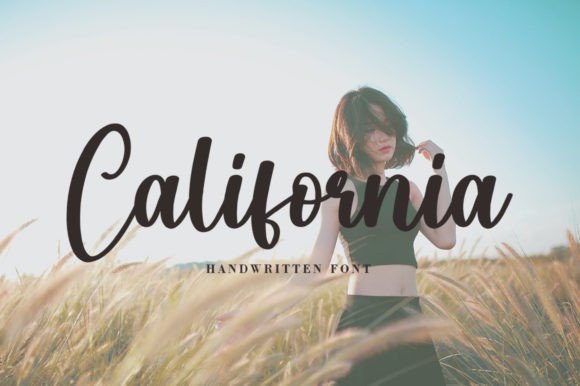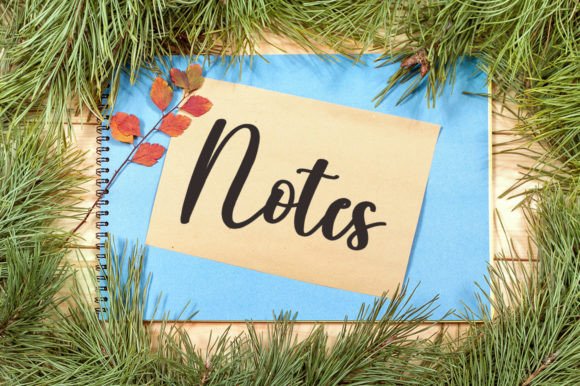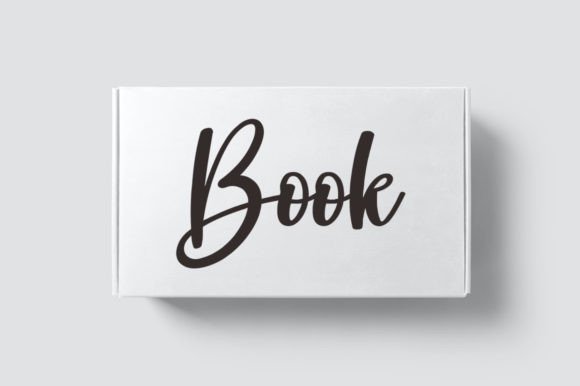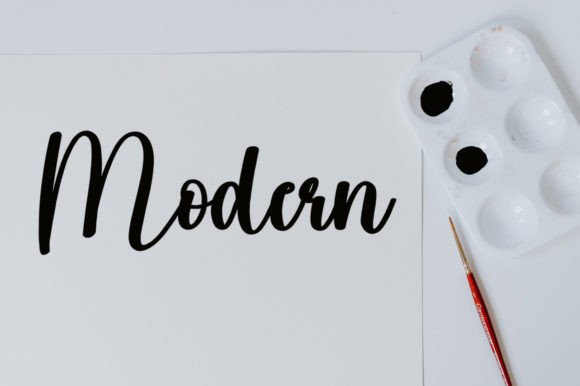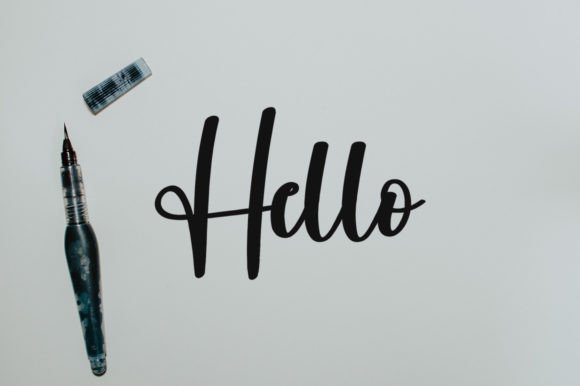
California Font
A Fun and Friendly Handwritten Script
California is a cheerful handwritten font designed to add warmth and personality to any creative project. With its smooth, casual strokes, it feels approachable and playful. Whether you’re designing greeting cards, crafts, or digital content, California makes your work stand out with a happy, inviting look.
Its clean lines and balanced curves make it versatile enough for both personal and professional use.
California is a font you’ll reach for over and over again. It’s perfect for crafting projects, including handmade cards, labels, and scrapbook pages. The friendly handwritten style helps every design feel unique and sincere.
For digital design, California shines on social media graphics, website headers, and presentations. The playful script adds energy and keeps your visuals fresh and engaging.
This font also works beautifully on event materials like birthday invitations, party banners, and thank you cards. The casual look creates a lighthearted atmosphere that guests will love.
In branding, California can add a welcoming touch to logos, packaging, and business cards. The approachable style helps your brand feel genuine and relatable.
Despite its playful character, California remains clear and legible in any size. Balanced spacing and smooth connections between letters ensure your text is neat, whether in big headlines or smaller captions.
For a modern, clean look, pair California with a simple sans-serif font. Use California for titles and highlight text, and the sans-serif for supporting content. This combination creates a professional layout while showcasing the font’s joyful feel.
To make California shine, use soft color palettes and simple backgrounds. Shades like pale blue, blush pink, and light gray help the script stand out without overwhelming your design.
When designing cards or crafts, consider adding small illustrations or decorative borders that complement the handwritten style.
On social media, embrace white space to keep your text clear and make your posts easy to read.
Think about the mood you want to create. California is perfect for designs that should feel friendly, upbeat, and welcoming.
California isn’t just another handwritten font—it’s a creative asset that brings energy and charm to every project. From personal crafts to professional branding, this font adapts seamlessly to any purpose and adds a unique touch to your designs.
Adding California to your font collection ensures you always have a versatile, stylish option ready to use. Whether you’re creating social media posts, event invitations, or product packaging, this font makes everything feel more joyful and memorable.